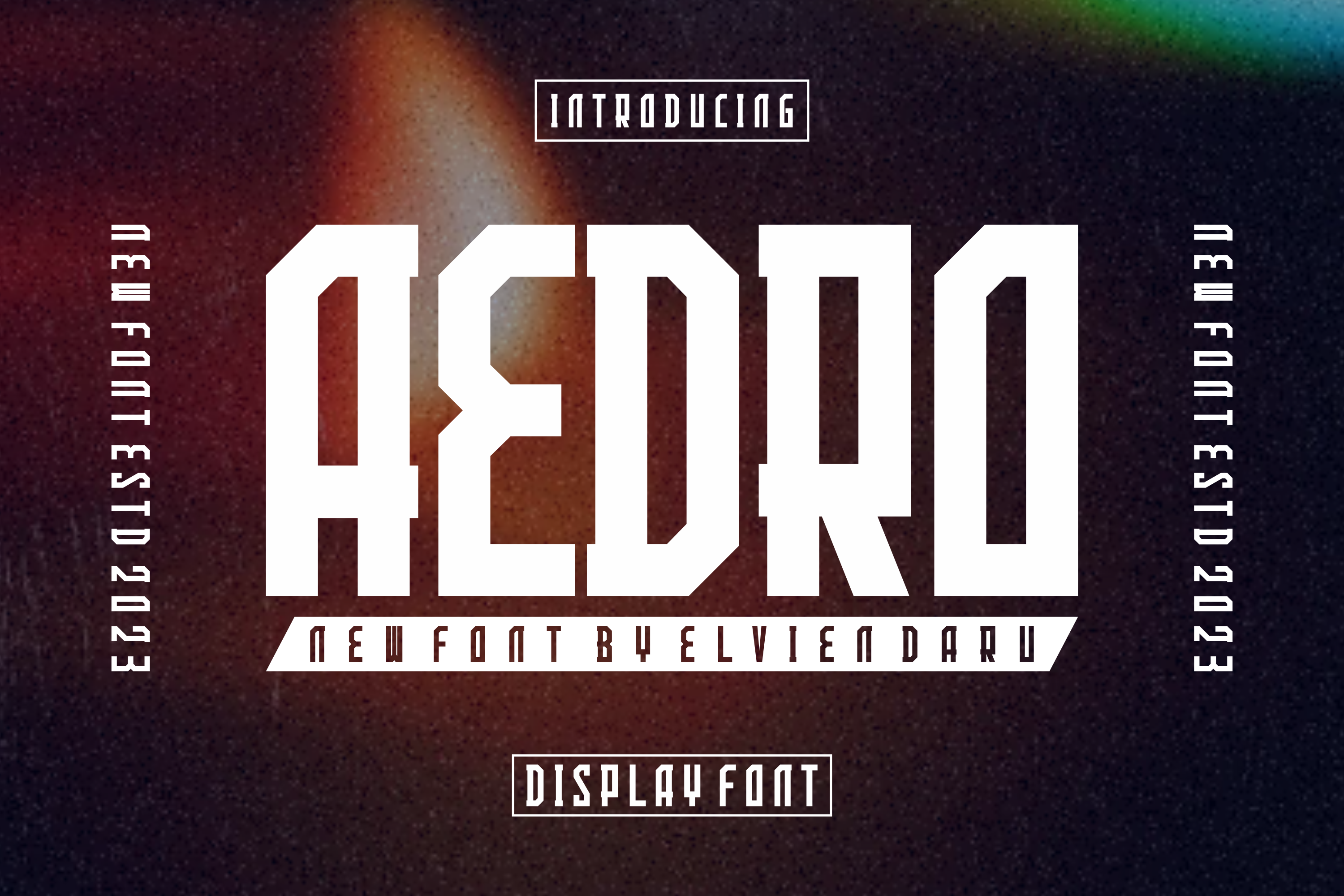
Aedro Retro Font
Perfectly suited on print/screen. it’s perfect for Branding, name card, poster, logo, magazine, cover, banner, t-shirt and headers, or even large-scale artwork.